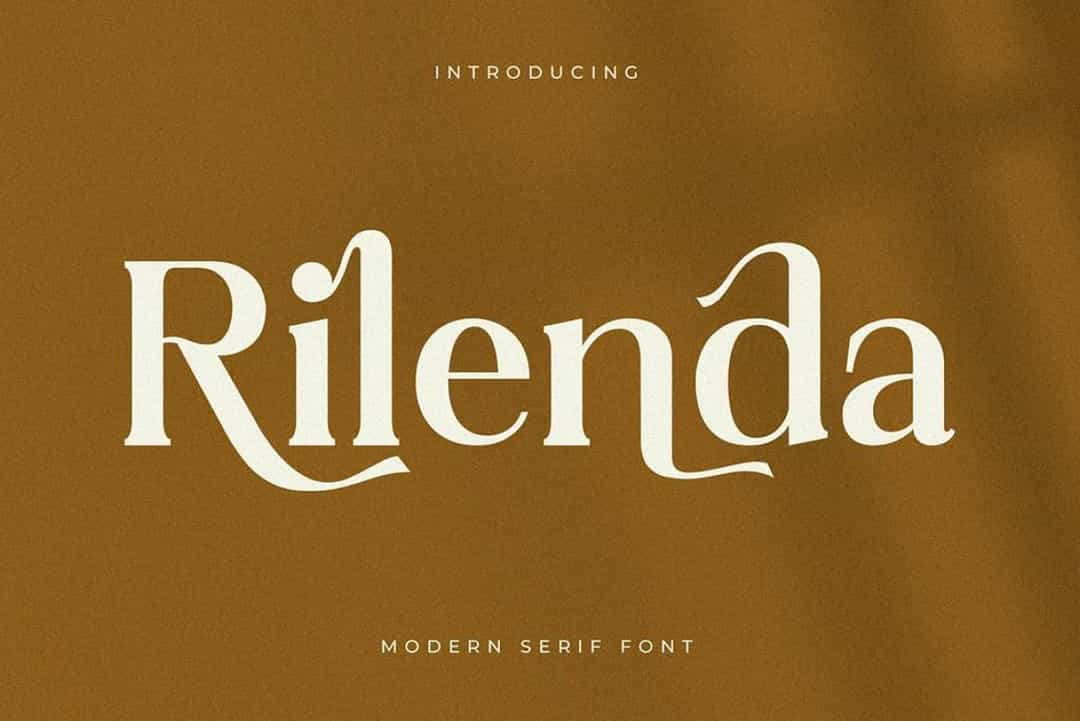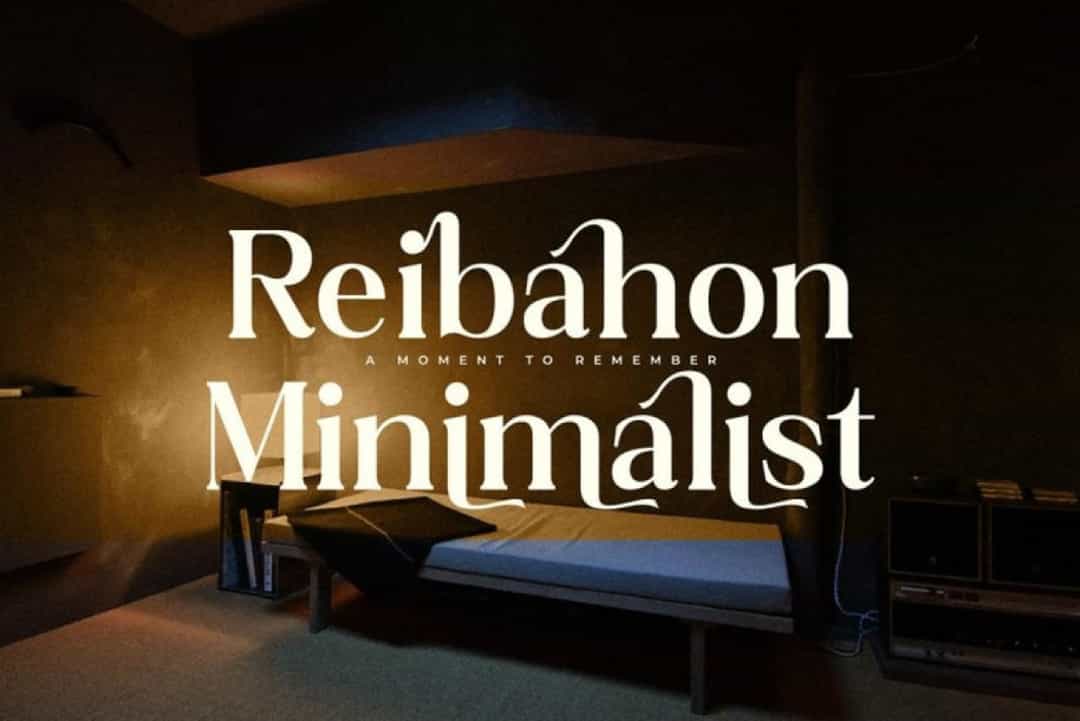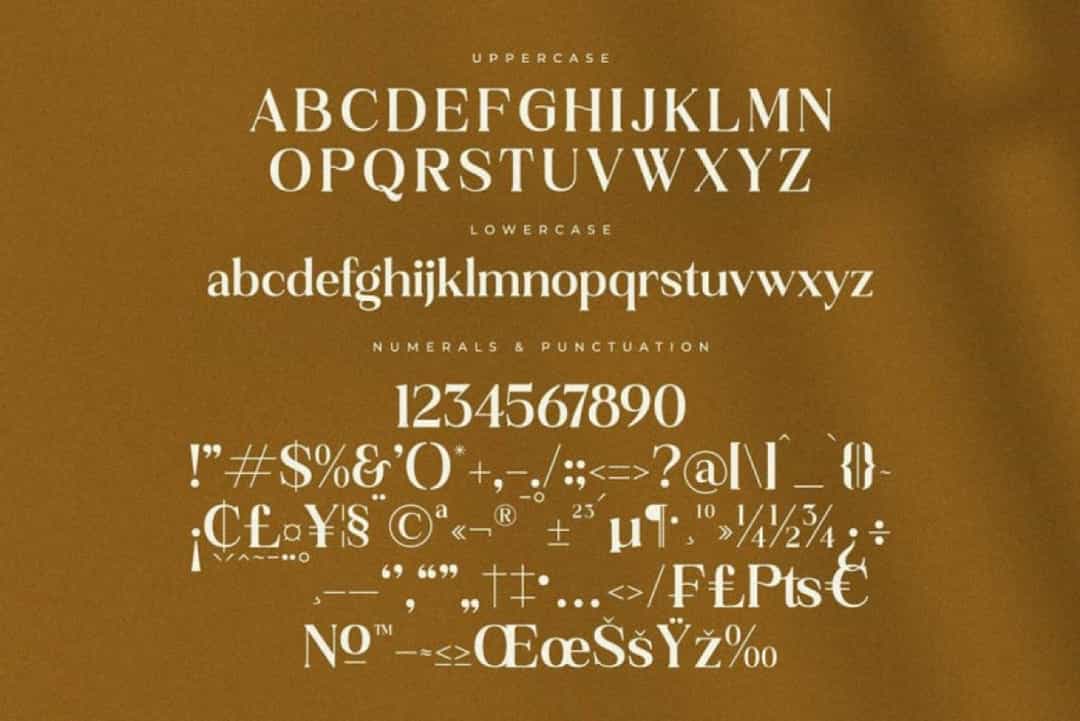
Rilenda is an elegant and modern serif font with an attractive yet sleek style, ideal for creating feminine designs with its sophisticated appearance and luxurious touches. Perfect for creating chic logos, movie or book title designs, fashion label clothes designs, magazines quotes as well as lettering – and much more besides!